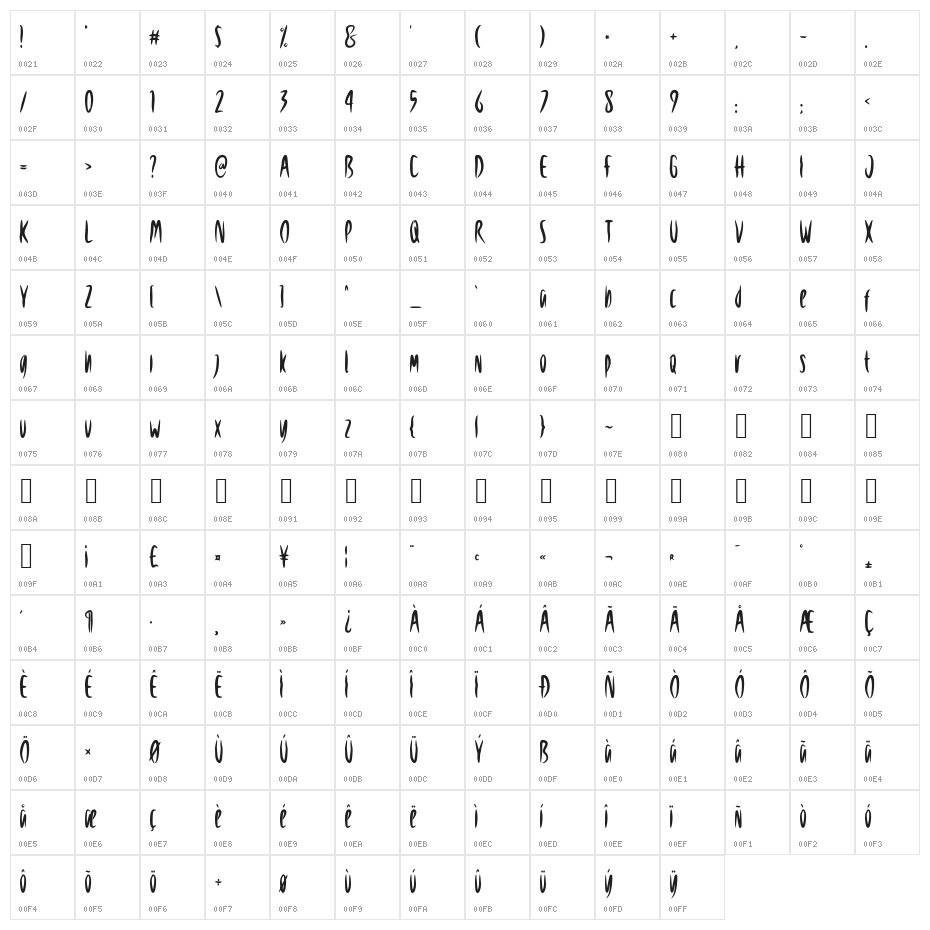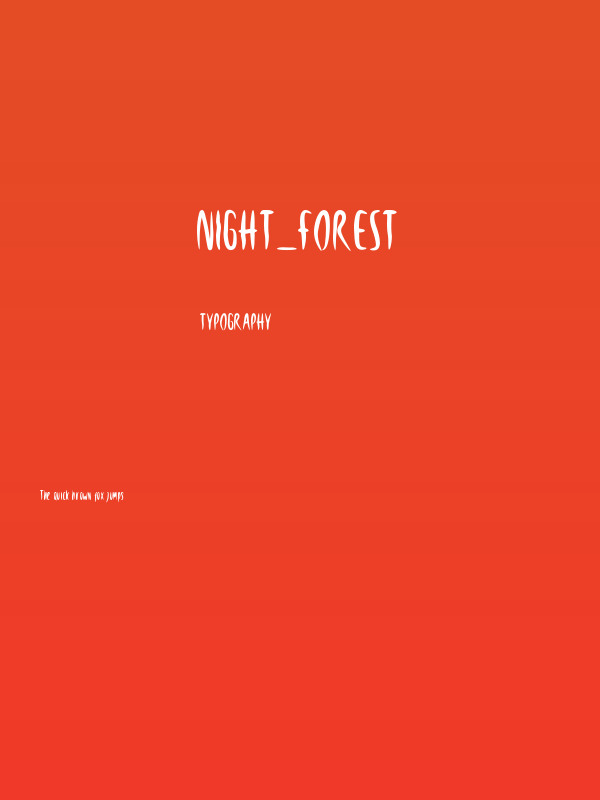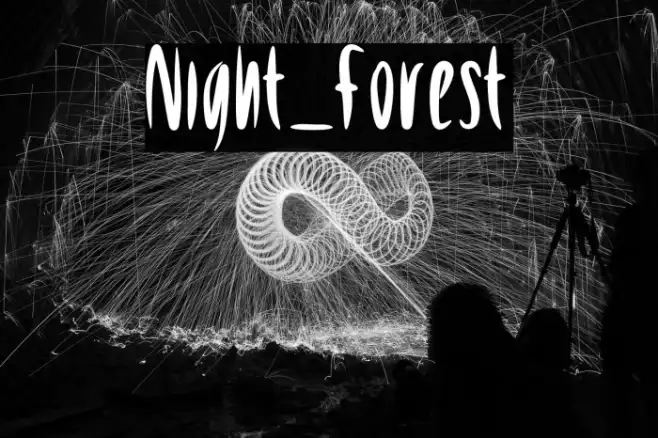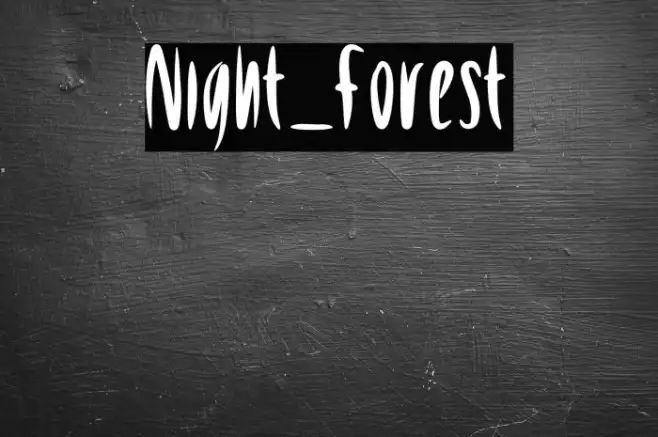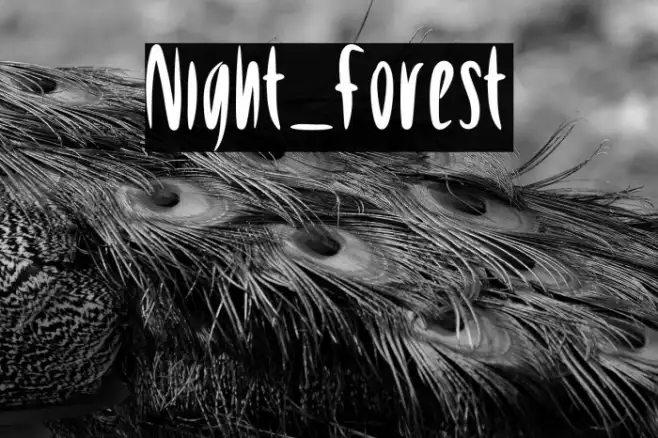
Night_Forest Font
Night_Forest Description
This font features a dynamic and expressive handwritten style, characterized by its fluid and organic letterforms. The strokes are uneven, with a natural brush-like appearance that adds a sense of movement and energy. The uppercase and lowercase letters maintain a consistent style, with a playful yet sophisticated look. Numbers and special characters are designed to complement the overall aesthetic, making it versatile for various creative applications. The font's unique personality is perfect for projects that require a personal touch or artistic flair.
| Proposed Projects | Ideal for branding, invitations, posters, and social media graphics. |